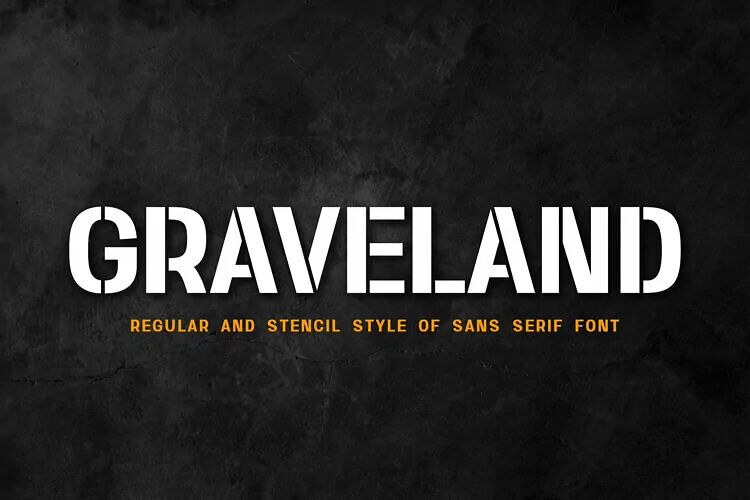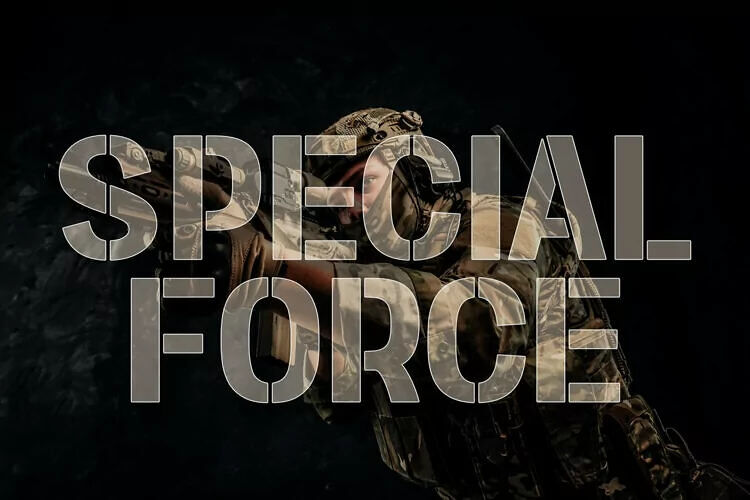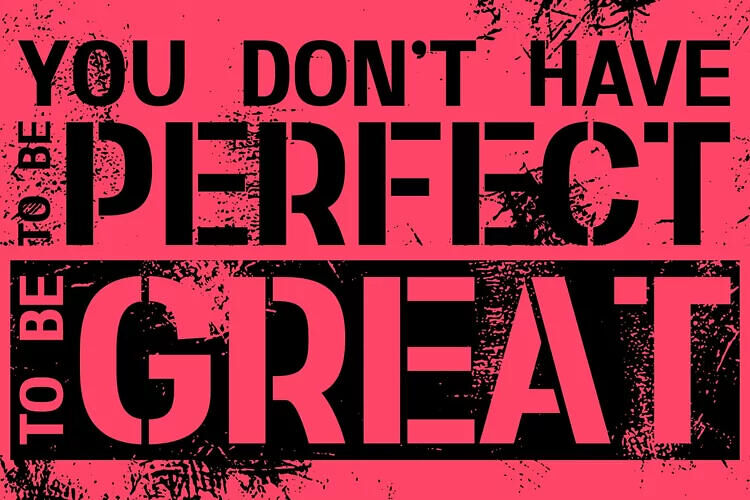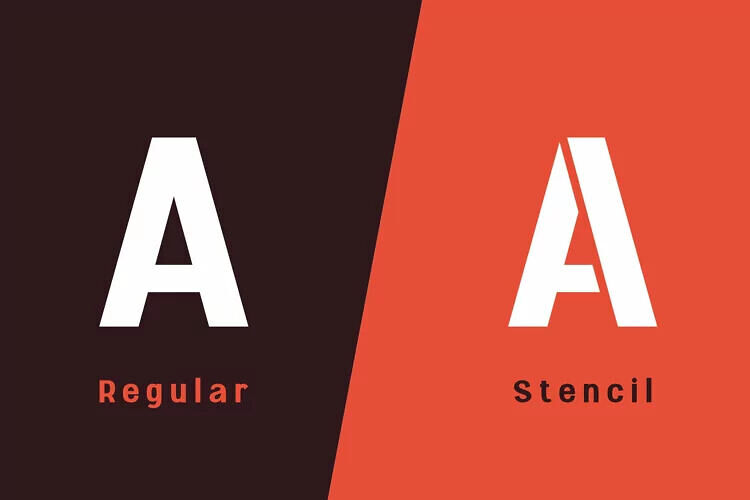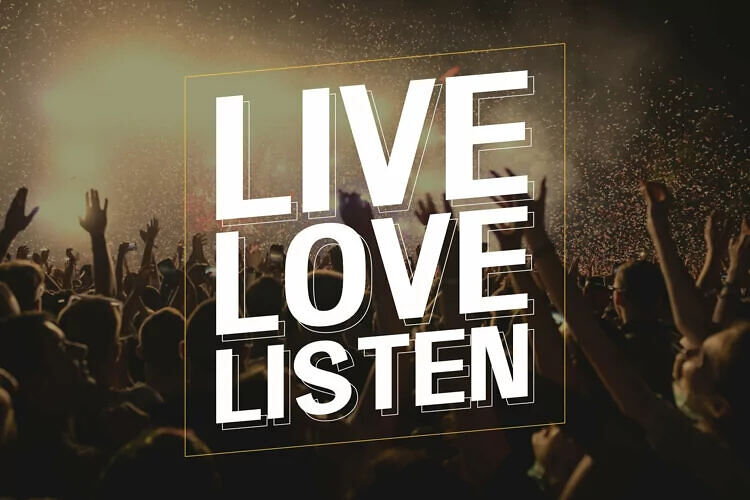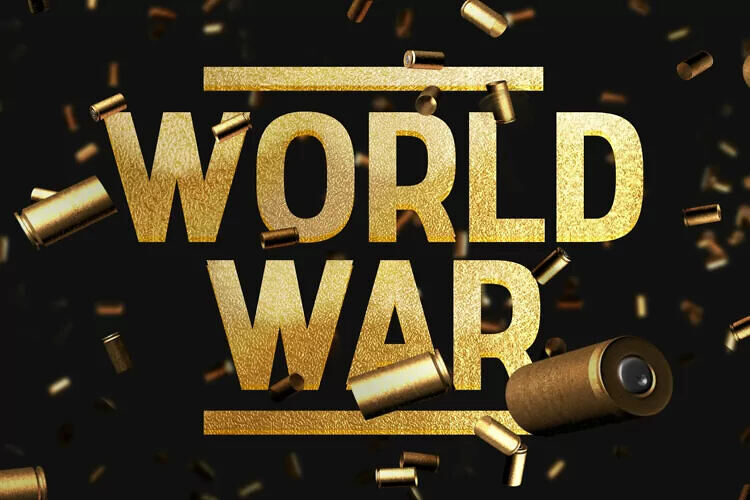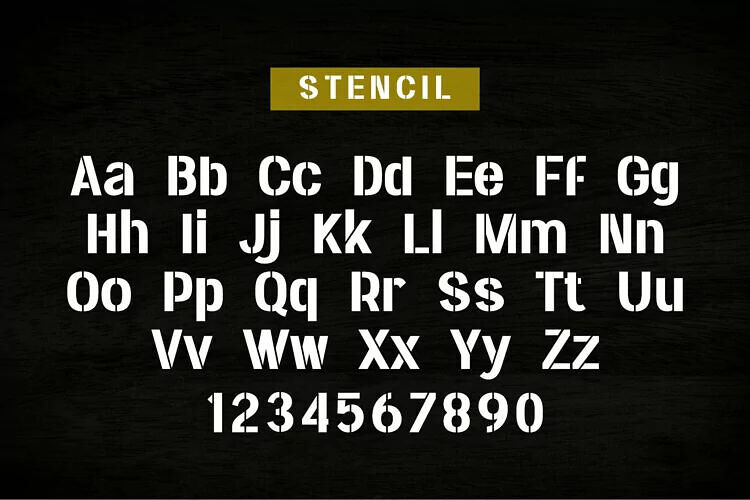
Graveland Font
GRAVELAND is a versatile sans serif font that blends modern elegance with sporty appeal. Ideal for t-shirt designs, brand logos, corporate materials, and fashion branding, this sleek typeface enhances both casual and professional projects.
With its clean, contemporary lines, GRAVELAND ensures your designs stand out with style and sophistication. Perfect for creative branding or polished presentations, it adapts seamlessly to diverse needs.